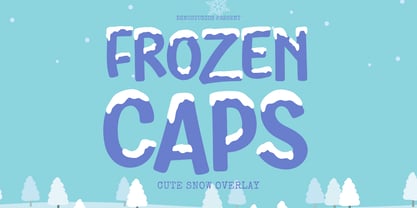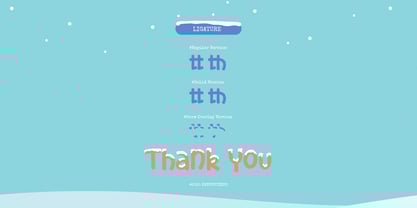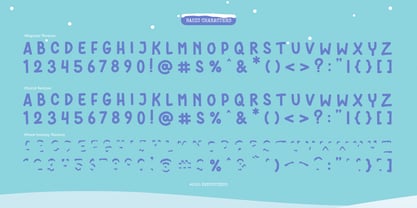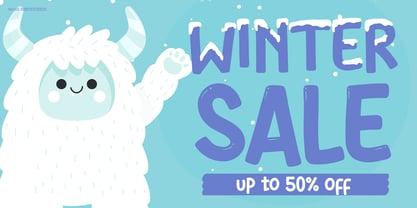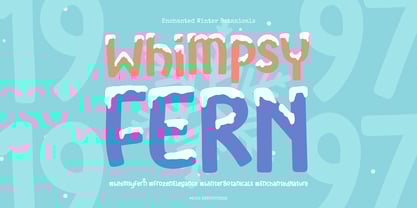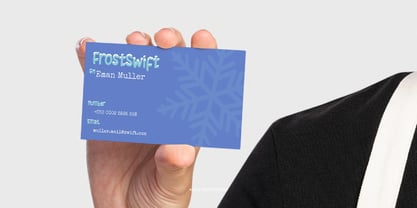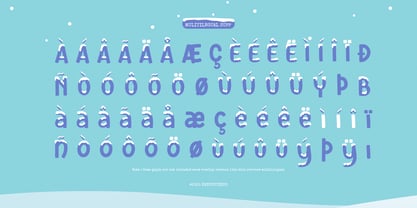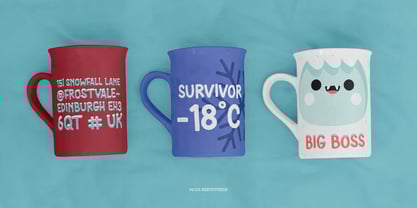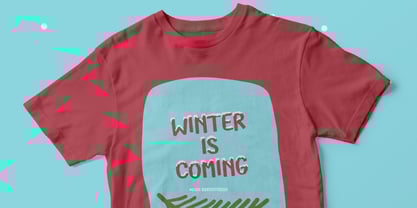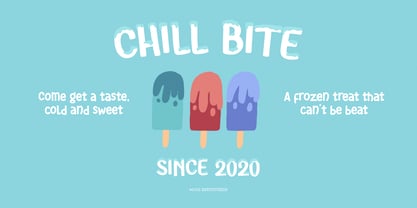
Frozen Caps
The Frozen Caps Font Family was designed by Dede Nugraha and published by Denustudio. Frozen Caps contains 1 styles. More about this family
Frozen Caps | Cute Snow Overlay, from Denustudios, suitable for any projects such as: logos, branding projects, homeware designs, product packaging, mugs, quotes, posters, shopping bags, t-shirts, book covers, name card, invitation cards, greeting cards, label, photography, watermark, special events, and all your other lovely projects that need Cute Snow Overlay a taste.
• Regular and Italic
• Standard glyphs
• Alternate and Ligature
• Fonts include multilingual support